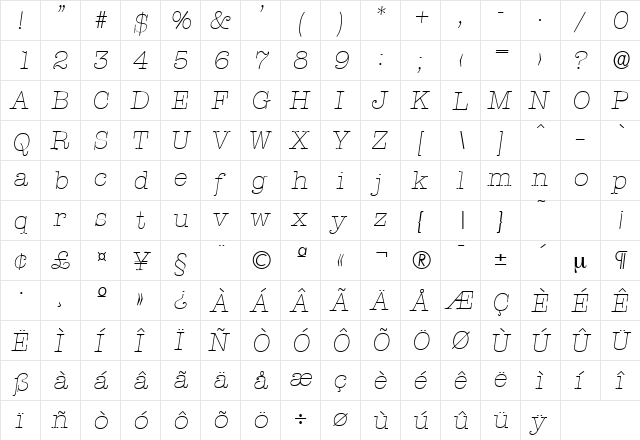
Typewriter-Serial-ExtraLight RegularItalic Font Preview
Design Context for Typewriter-Serial-ExtraLight Typeface
Typewriter-Serial-ExtraLight uses fixed-width spacing throughout, giving it the structured, systematic character associated with coding environments and technical documentation. The dynamic lean of this cut emphasises speed and emphasis in any layout. Its slender proportions lend an understated elegance to any composition.